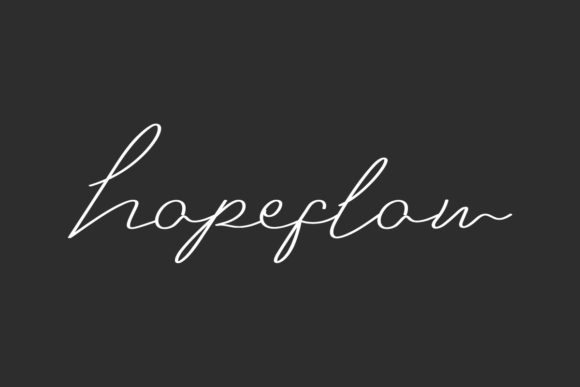
Journey into the realm of artistic expression with Hopeflow Font, a captivating script typeface born from the imagination of vintype. This enchanting font family is meticulously crafted to ignite your creativity and transform your designs into masterpieces.
Hopeflow beckons you to embrace its graceful curves and elegant strokes, reminiscent of a handwritten letter penned with utmost care. Whether you're conjuring wedding invitations that evoke timeless romance or crafting movie scripts that demand an air of authenticity, Hopeflow stands as your steadfast companion.
Immerse yourself in the world of branding titles, book covers, and social media posts, where Hopeflow's allure shines through. Its versatility is truly remarkable, adapting seamlessly to a myriad of projects, each infused with a touch of sophistication and charm.
Unleash your inner artist and explore the depths of your imagination with Hopeflow. Its PUA encoding grants you effortless access to a treasure trove of glyphs and swashes, empowering you to add intricate details and expressive flourishes to your creations.
With Hopeflow at your fingertips, you hold the key to unlocking a world of design possibilities. Its beauty transcends the ordinary, leaving an indelible mark on your projects that will captivate and inspire.